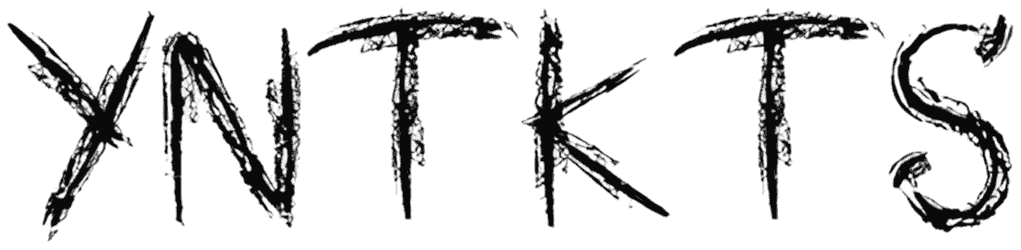
Yntkts Font
Yntkts is one of the brush fonts you can immediately imagine in your next project. This script font has streaks of the brush and spots of ink scattered around it.
The attractive watercolor coating used in this emo font can combine drawing and line, which will double the effect of conveying your message. So if you are looking to attract an audience through posters, website banners, packaging, and urban advertising, Yntkts has many options to offer.